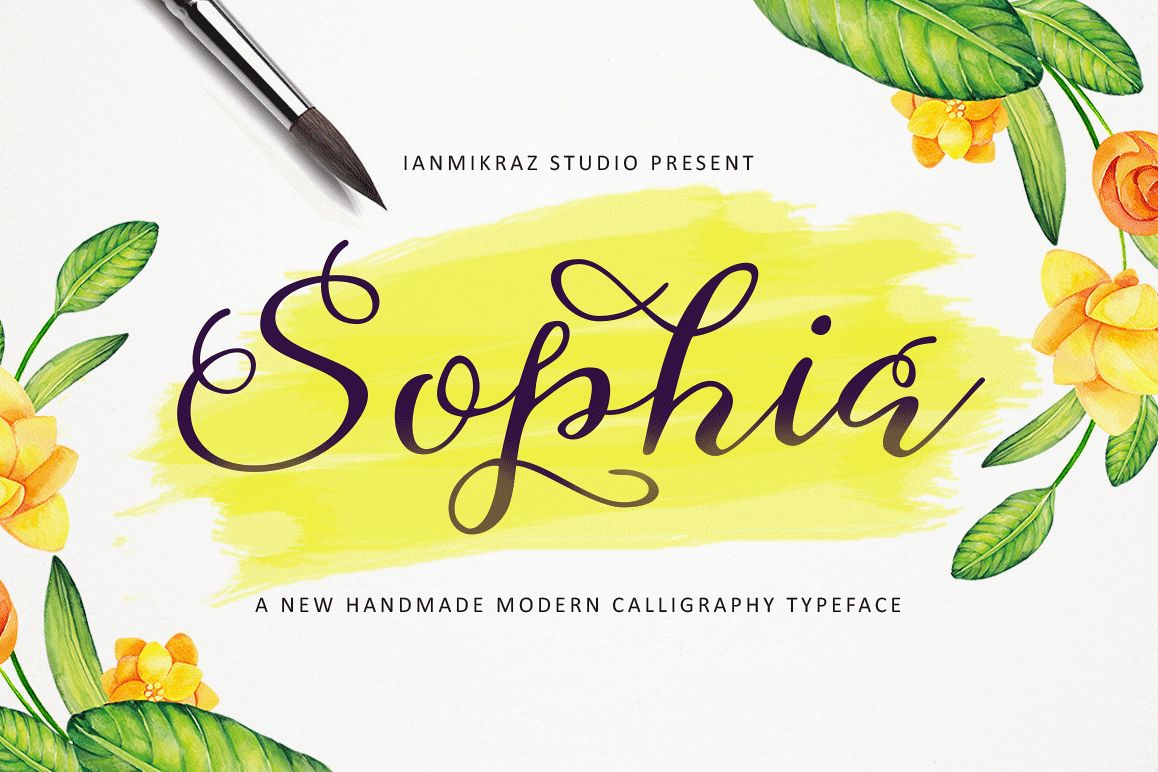
Shopia Script
Introducing Sophia Script
Sophia Script is a new handwritten stylish copperplate calligraphy fonts, combines from copperplate to contemporary typeface, classic and elegant touch.Sophia Script features 370 glyphs and 115 alternate character contain with opentype features. Stylistic alternates, Swash Alternates, Ligature and more. You can access all those alternate characters by using OpenType savvy programs such as Adobe Illustrator, Adobe InDesign and CorelDraw X6-X7.For other programs that doesn't support OpenType features or Glyphs Panel such as Photoshop, you can use Character Map in Windows to access the alternate characters :)
Sophia Script is suitable for Apparel Brand, any greeting cards, Painting design style, or any design that needs natural and personal touch. Mix and match the alternate characters to add an attractive message to your design.
Features of Sophia Script is;
• Swash Alternates
• Standard Ligatures
• Stylistic Sets